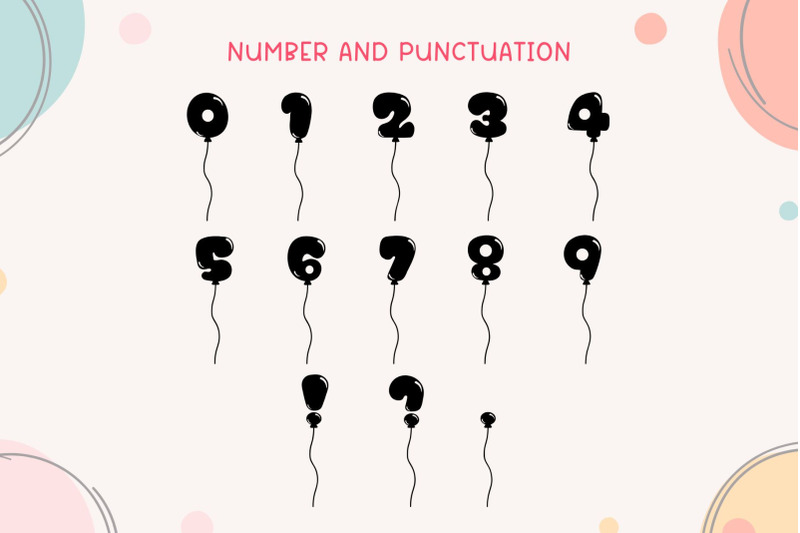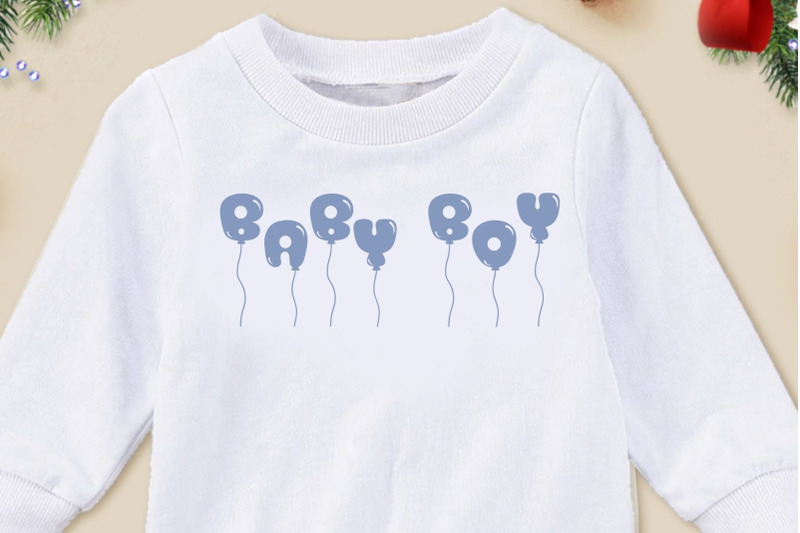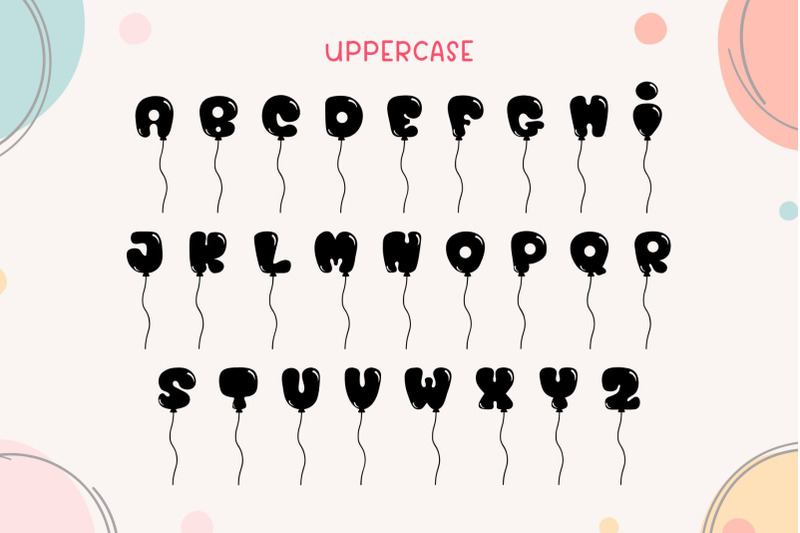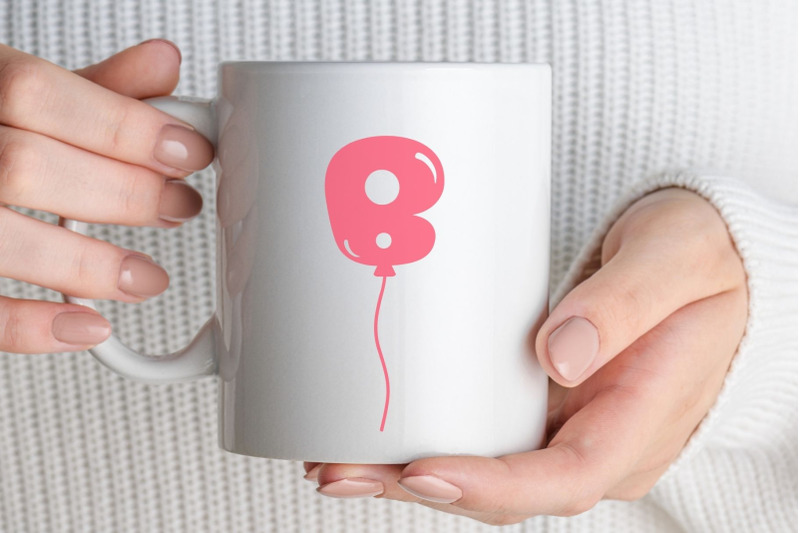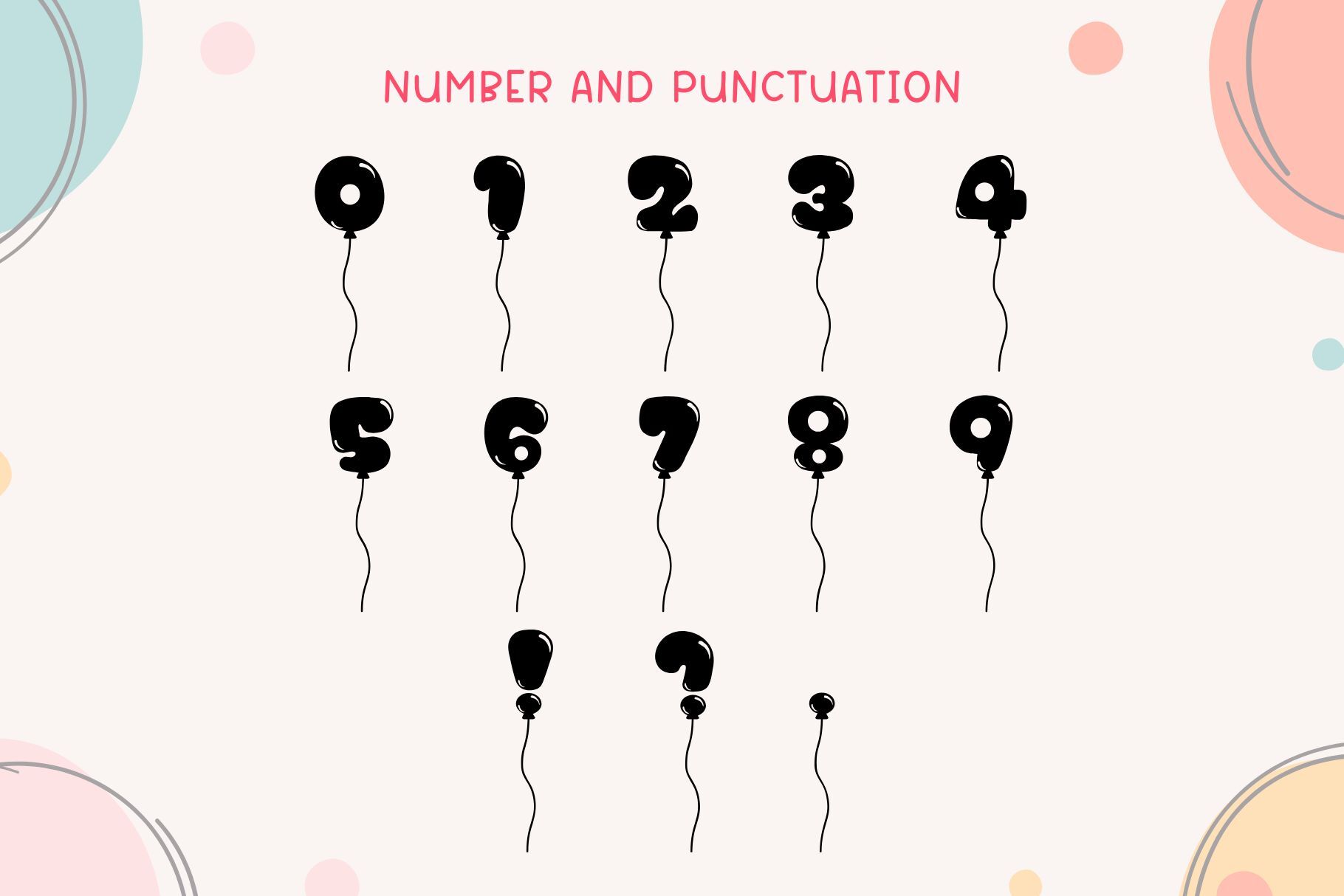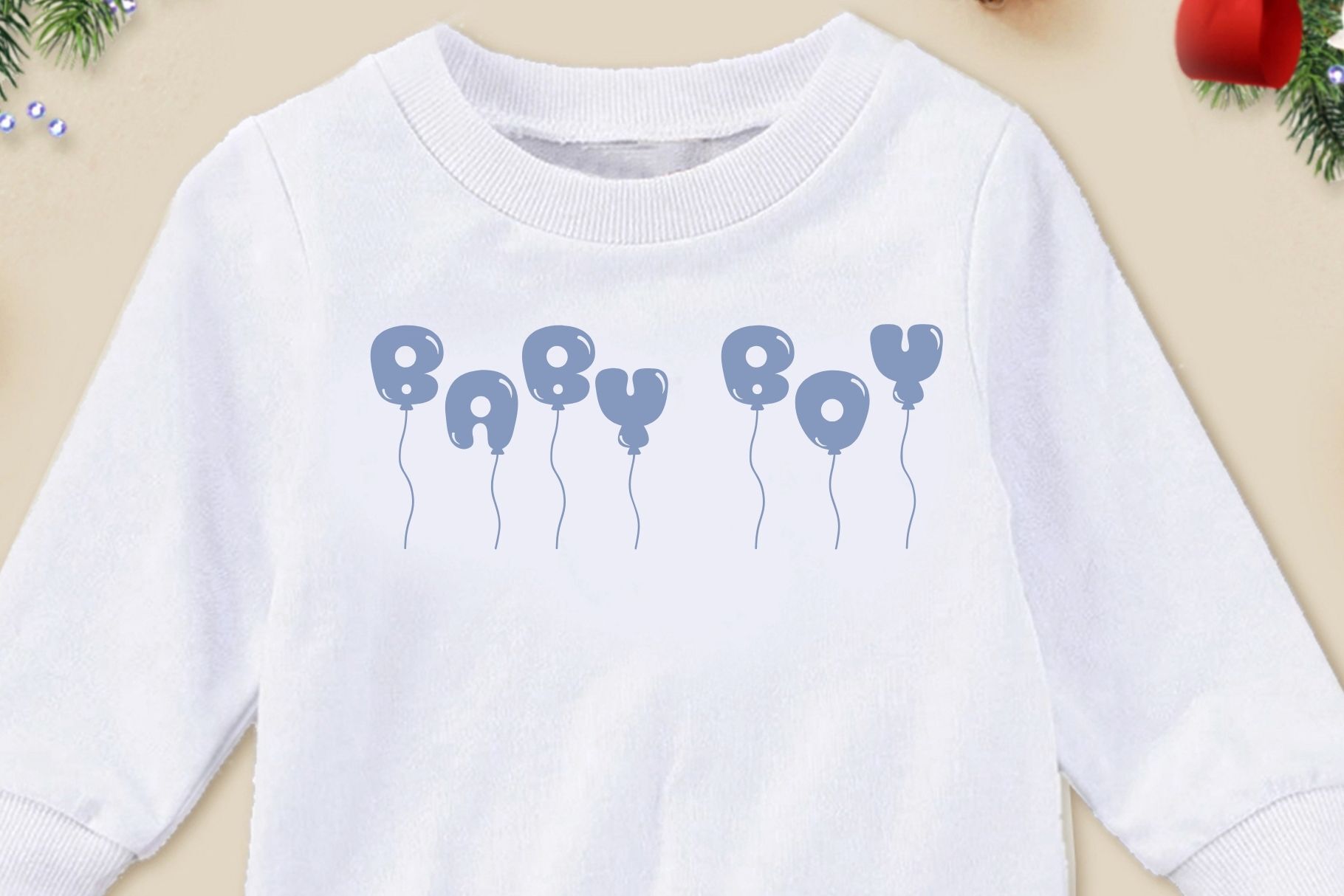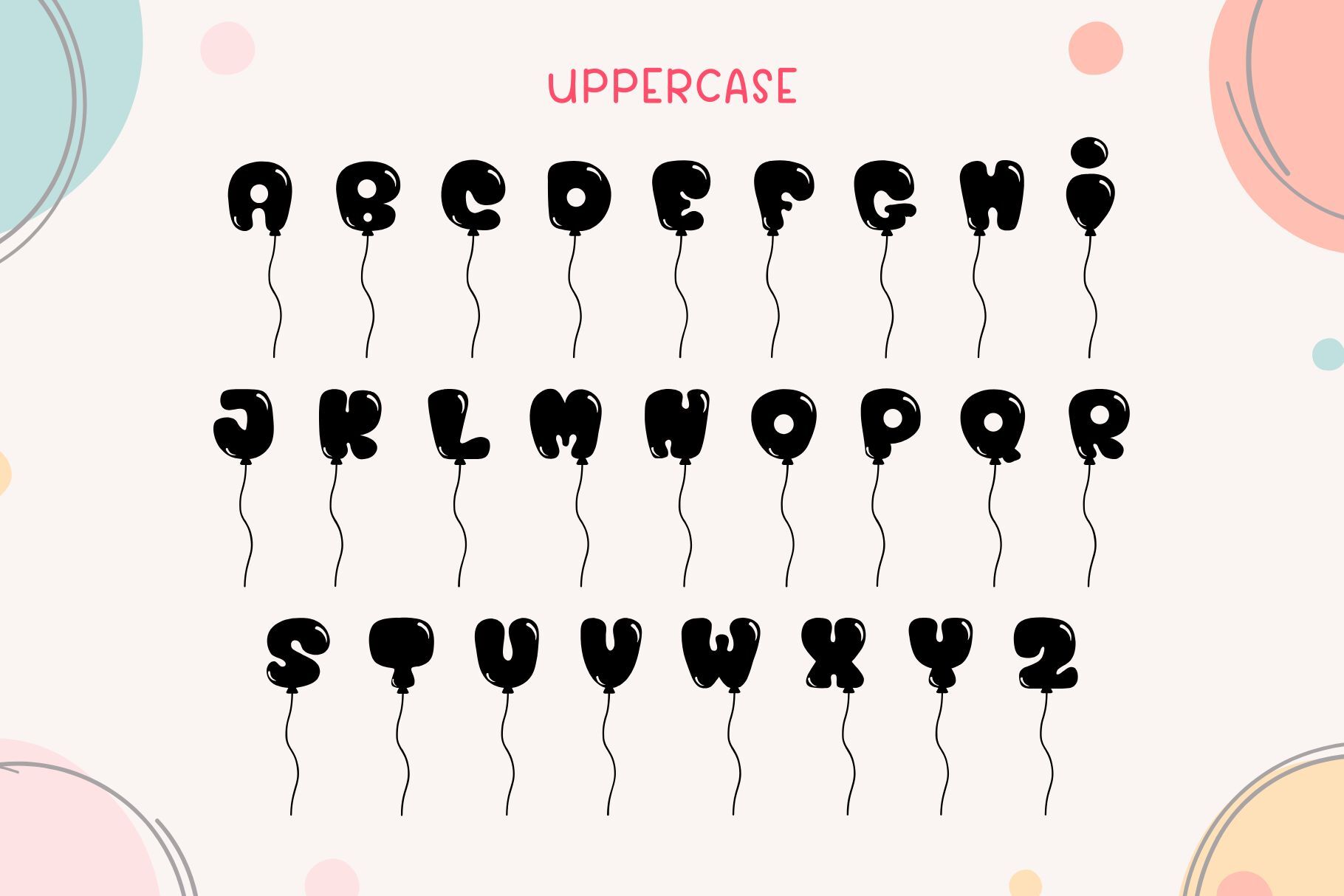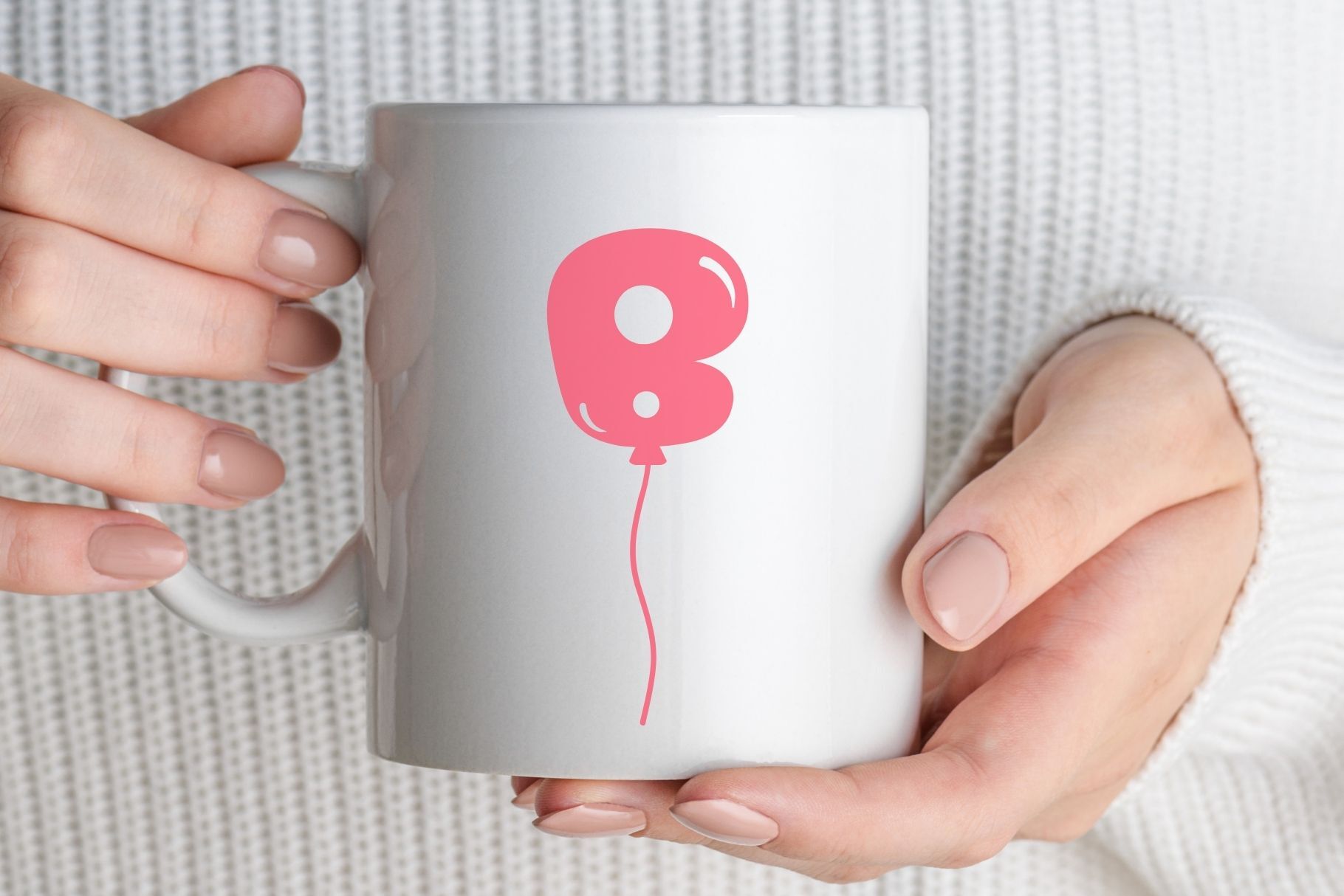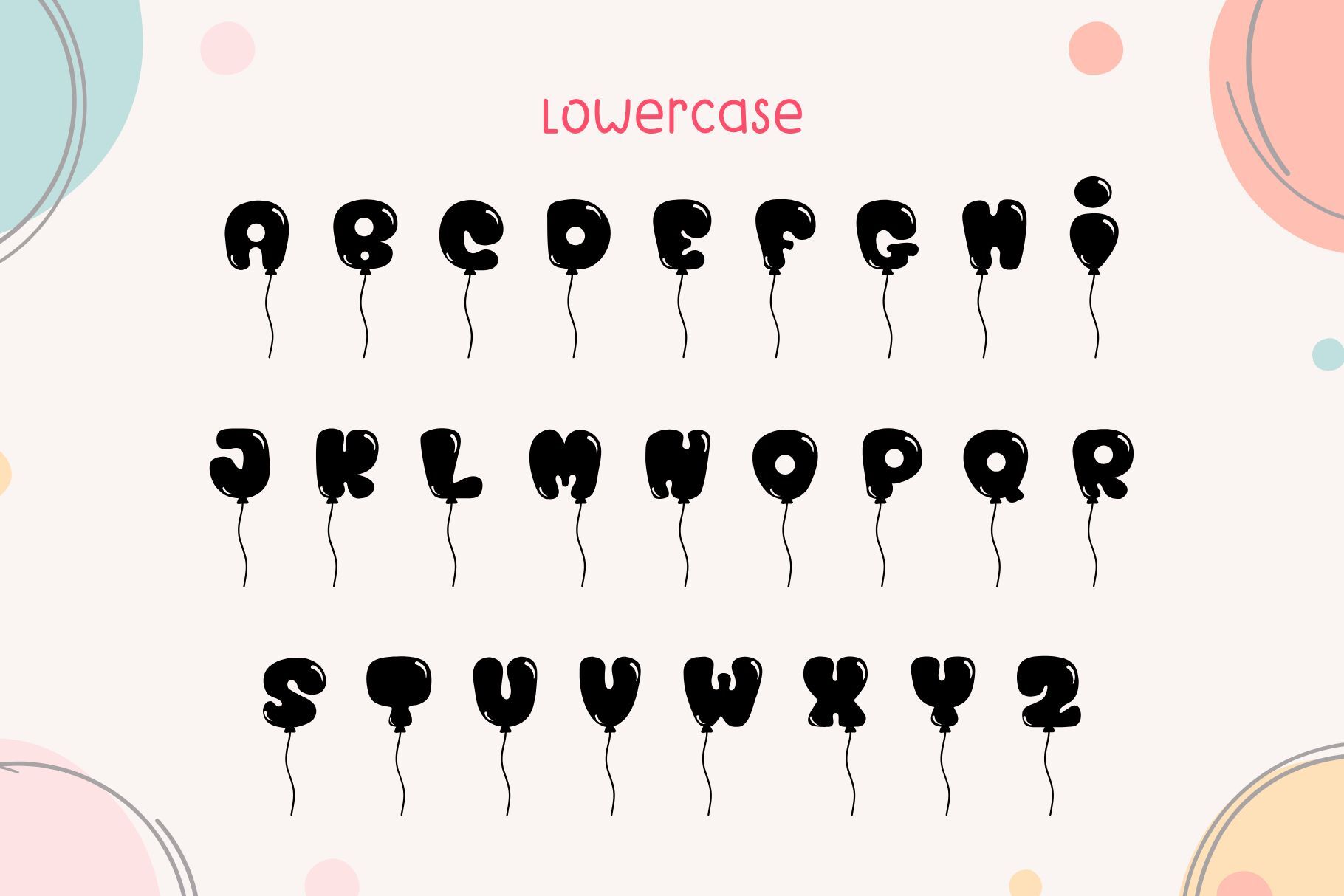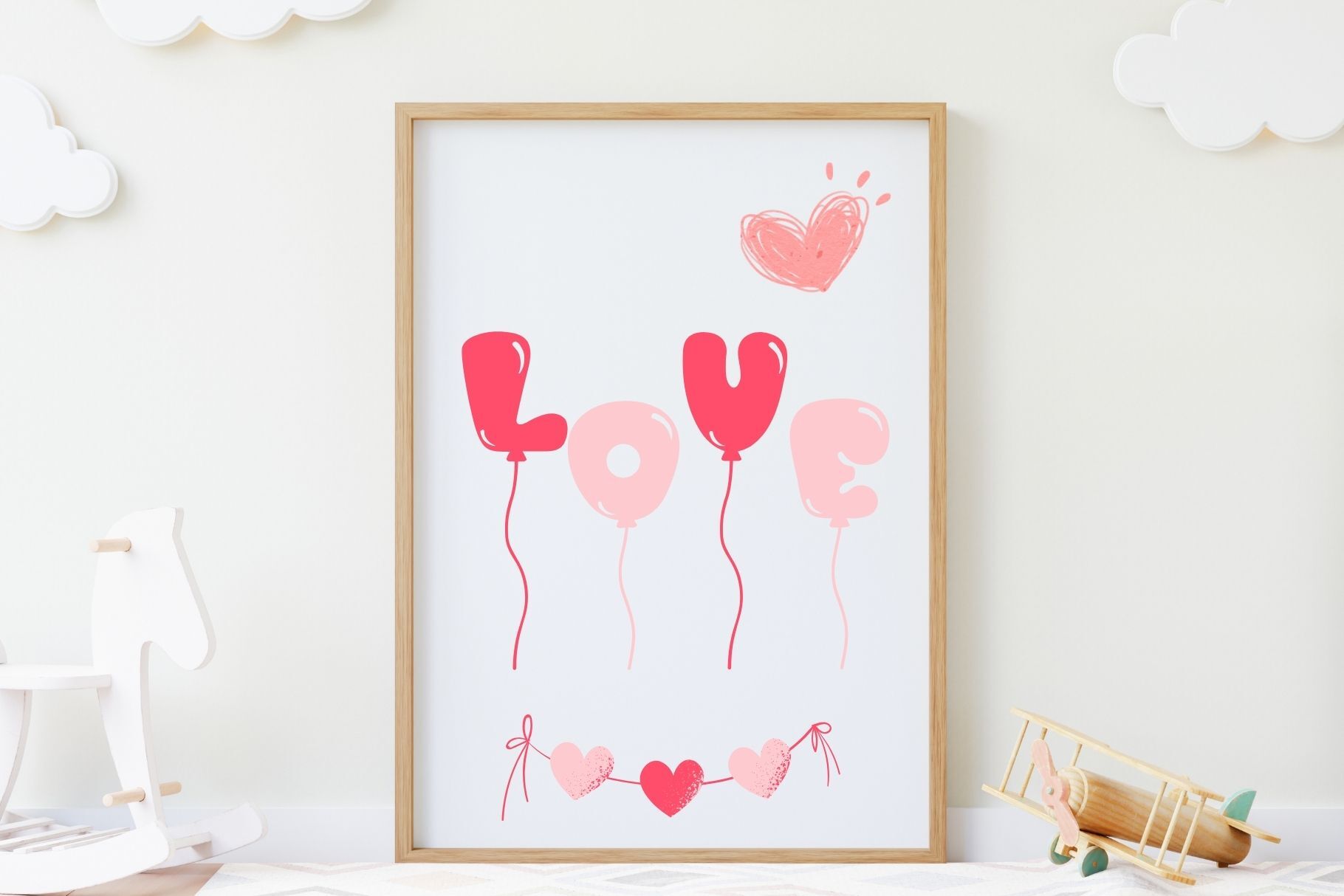
Balloon - Bubble Decorative Font
Balloon is a fun and playful decorative font designed to bring a festive touch to your projects! This adorable bubble-style balloon letter set is perfect for birthday invitations, party decorations, greeting cards, kids’ designs, and more! Each letter mimics a colorful balloon with a cute string, adding a whimsical feel to your designs. *You will receive 1 Zip file: OTF, TTF and WOFF Files ❤️ Thank you! ❤️